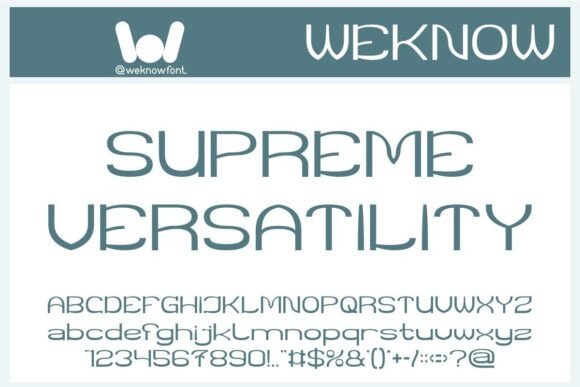
In a world where design trends shift rapidly, some fonts stand out for their adaptability and refined style. Supreme Versatility Font is one of those rare typefaces that manages to feel both contemporary and timeless — perfect for creative professionals who need a go-to font that looks effortlessly sophisticated across countless design projects.
Whether you’re building a bold logotype, designing magazine headlines, creating cinematic movie posters, or crafting clean web graphics, Supreme Versatility brings exactly what its name promises: elegant minimalism with a broad creative range.
🖋 What is Supreme Versatility Font?
Supreme Versatility is a stylish, minimalist display font with a light, natural aesthetic. Its balanced structure and elegant proportions make it suitable for everything from fashion branding to digital media.
At its core, Supreme Versatility is about simplicity and adaptability:
✅ Sleek, thin strokes give it a modern, lightweight feel.
✅ Clean lines and geometric shapes ensure legibility even at larger headline sizes.
✅ Subtle personality makes it professional without feeling cold.
Unlike overly decorative fonts that can limit your creativity, Supreme Versatility is designed to blend seamlessly into almost any visual identity — while still adding its own refined character.
🌟 Why Designers Choose Supreme Versatility Font
What sets Supreme Versatility apart isn’t just its clean lines, but the thoughtful balance of style and subtlety that makes it shine across different media:
✨ Minimalist aesthetic: Perfectly aligns with current design trends, yet classic enough to stay relevant.
🛠 Incredible flexibility: Use it in branding, film titles, product packaging, or website hero text.
🎨 Natural elegance: Adds sophistication without being flashy.
🖼 Versatile personality: Soft enough for lifestyle brands, structured enough for tech or corporate identity.
📱 Modern display appeal: Designed to look sharp on screens and in print, from social media graphics to posters.
It’s a font that quietly elevates your design without overwhelming it.
🛠 Where Supreme Versatility Shines
Because it’s modern and neutral yet stylish, Supreme Versatility fits perfectly in:
📸 Logo & branding design: Especially for lifestyle, fashion, interior, beauty, or tech brands.
📰 Magazine titles & editorial headlines: Add minimalist impact to covers and feature stories.
🎬 Movie & game posters: Use its clean elegance to balance dramatic visuals.
🛍 Product packaging: From perfume boxes to sleek tech gadgets.
📱 YouTube thumbnails & Instagram graphics: Helps your text look professional and polished.
🎧 Music covers & event flyers: Great for both indie and mainstream design.
🖥 Website headers & UI design: Keeps digital content clean and modern.
Its ability to remain visually striking without being heavy makes it perfect for creative and commercial uses alike.
✏ Supreme Versatility’s Style: Light Yet Impactful
One of the most unique aspects of Supreme Versatility Font is its light stroke weight combined with bold letter shapes. This balance creates:
✅ A minimalist style that feels airy and modern.
✅ Distinctive geometric forms that hold attention.
✅ Clean readability, even in all caps or mixed case.
The font avoids overused decorative elements, focusing on proportion and spacing to create visual interest.
🎨 Design Tips: Get the Best from Supreme Versatility
Here’s how to use this font effectively:
Pair with a classic serif: Like Baskerville or Playfair Display to add contrast.
Use generous spacing: Light fonts benefit from wider letter tracking.
Combine weights: If available, use Regular and Bold together for emphasis.
Stick to shorter text: Best for titles, logos, and headers rather than body copy.
Complement with minimalist visuals: Let the font’s clean design shine.
✨ Final Thoughts: Modern Elegance for Any Project
Supreme Versatility Font lives up to its name: it’s modern, clean, and perfectly balanced — ready to bring minimalist elegance to any creative idea.
Whether you’re building a luxury brand, designing a digital campaign, or creating sleek editorial headlines, Supreme Versatility helps your words feel professional, stylish, and timeless.